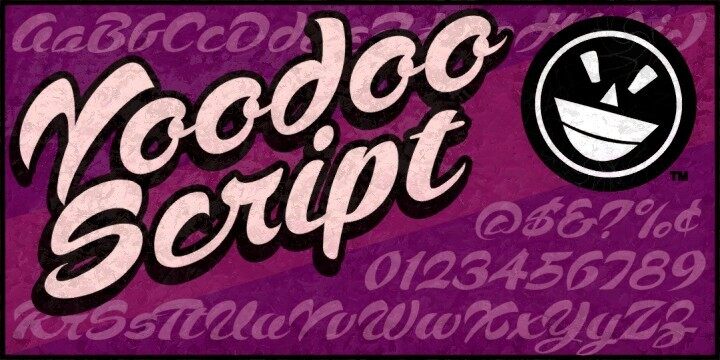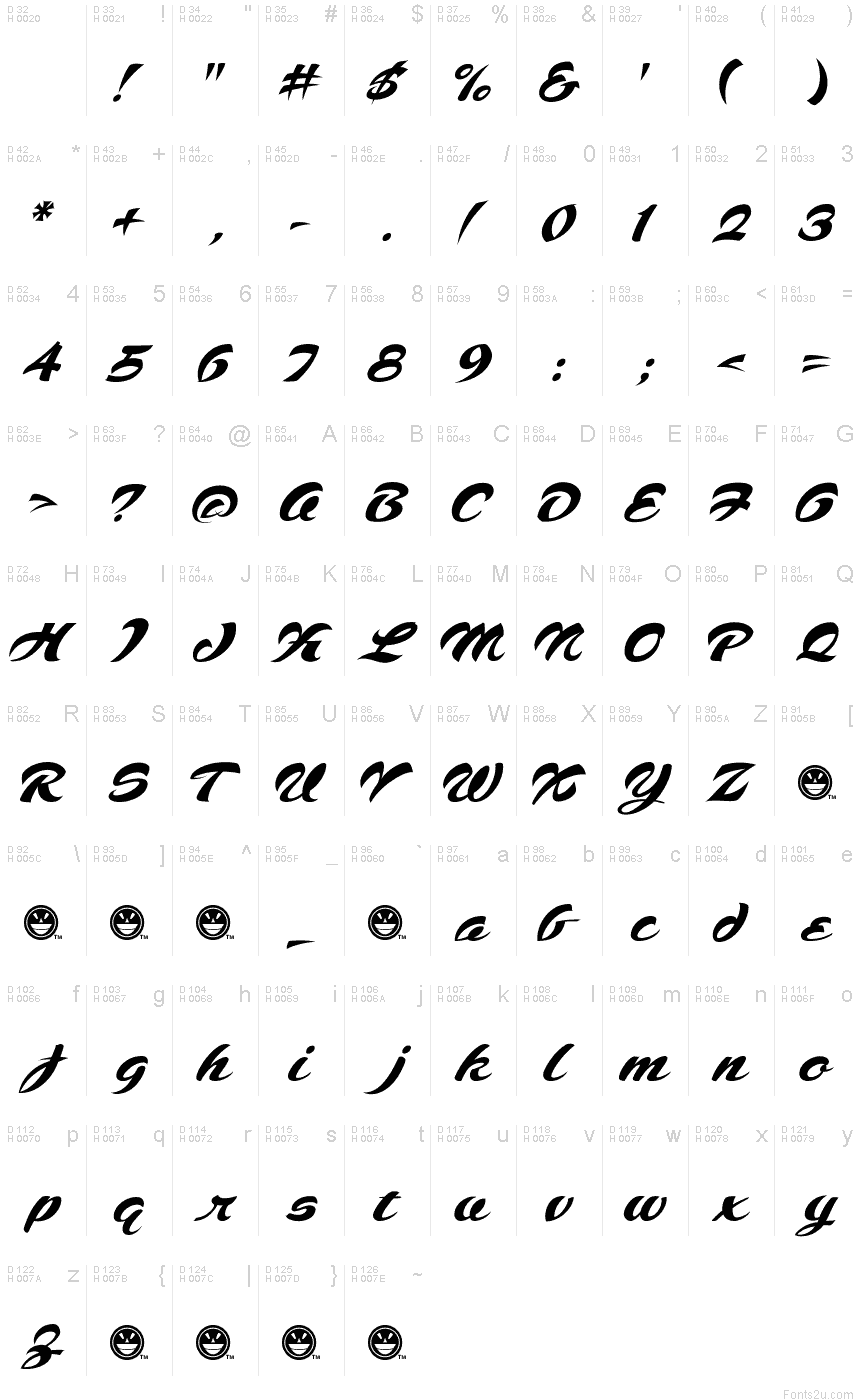
Voodoo Script
It's time for a script font with magical appeal. Think island. Think orient. Or for some, the magic is real. It's voodoo! Voodoo Script! We'll give you this limited example of Voodoo for free, but if you opt for our commercial version, it will arrive with 14,000 kerned pairs and over 45 alternate characters and ligatures!